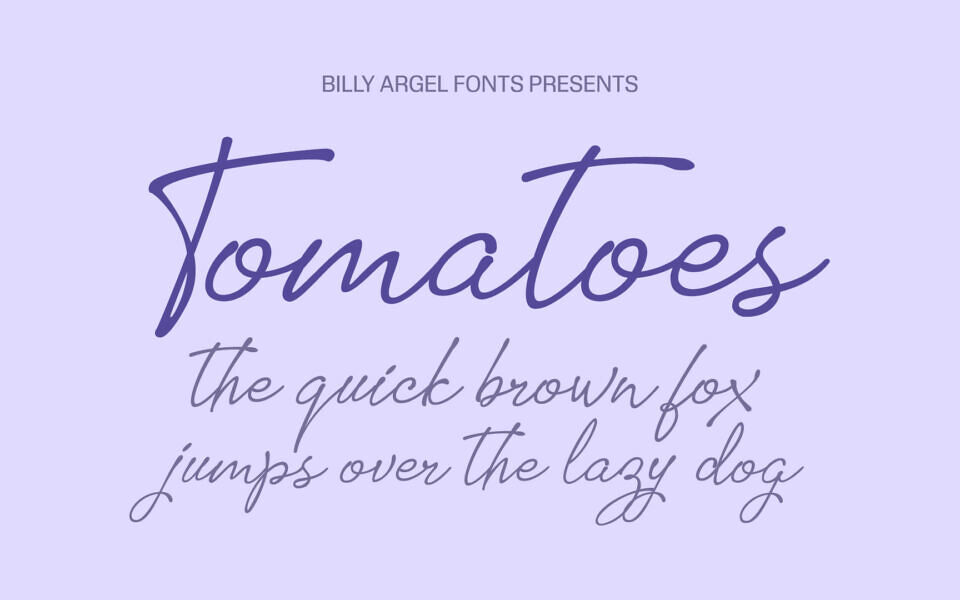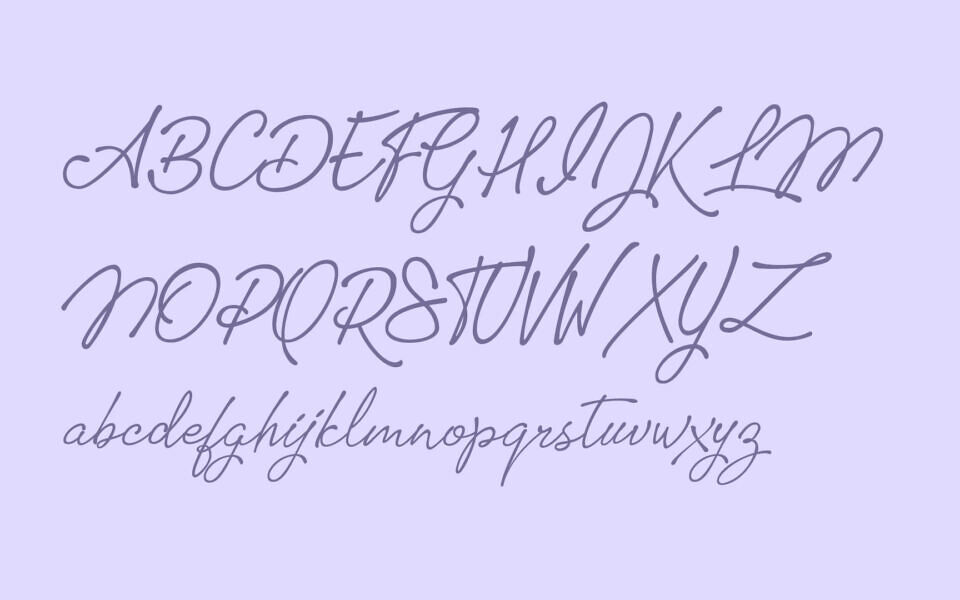
Tomatoes is a stylish script font with smooth, flowing strokes and an elegant handwritten feel. Its connected letters and graceful curves create a natural, continuous look, perfect for adding a personal touch to designs.
Ideal for logos, invitations, branding, and social media, it blends modern charm with a classy aesthetic. This font stands out in decorative projects, especially where a soft, expressive, and sophisticated style is desired.